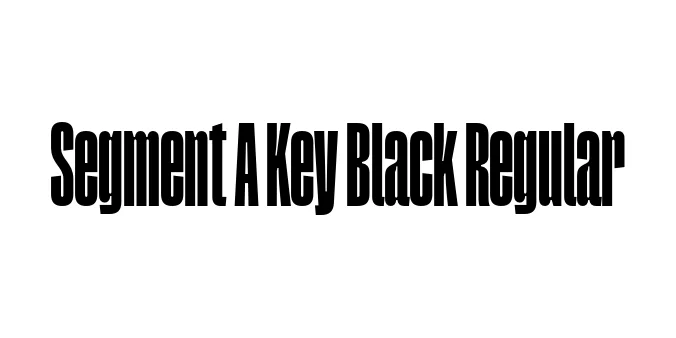
Segment A Key Black Regular
Designed by Robert Janes
| Category | Display / Geometric Sans Serif |
| Designer | Robert Janes |
Segment A Key Black Regular is a sophisticated modular typeface that originates from a rigorous exploration of technical grids and geometric precision. Developed by Robert Janes and released through the Lineto foundry, this font family stands as a testament to industrial aesthetics combined with contemporary design sensibilities. Its construction is rooted in a systematic approach to letterforms, where every curve and line is dictated by a strict underlying structure, resulting in a cohesive and authoritative visual language.
The Black Regular weight is particularly notable for its heavy, commanding presence, making it a powerful tool for display typography. While it draws inspiration from early computer-aided design and modular systems, it transcends these influences to offer a clean, high-contrast look suitable for high-end branding and editorial work. Its ability to maintain structural integrity at large scales makes it a favorite among designers seeking a balance between mechanical rigidity and modern elegance.
Segment A Key Black Regular Best Uses
Perfect for technology and architectural firm identities requiring a strong, modern presence.
Excellent for impactful headlines and section titles in high-end magazines.
Highly legible for large-scale signage in industrial or minimalist urban environments.
Ideal for futuristic interface designs and data visualization dashboards.